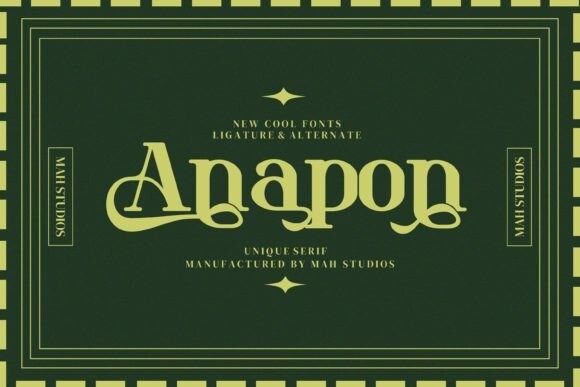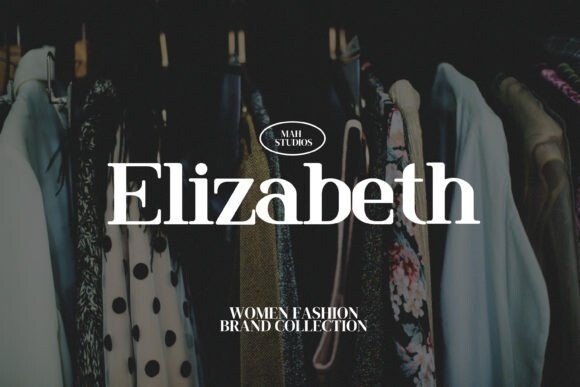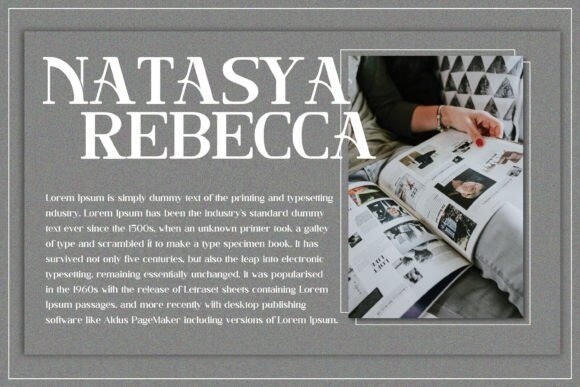
Anapon Font
Anapon is a cool and modern serif font masterfully designed to become a true favorite. It maintains its classy influences while feeling contemporary and fresh. Fall in love with it and bring your projects to the highest levels! Anapon is PUA encoded which means you can access all the glyphs and ligatures with ease!